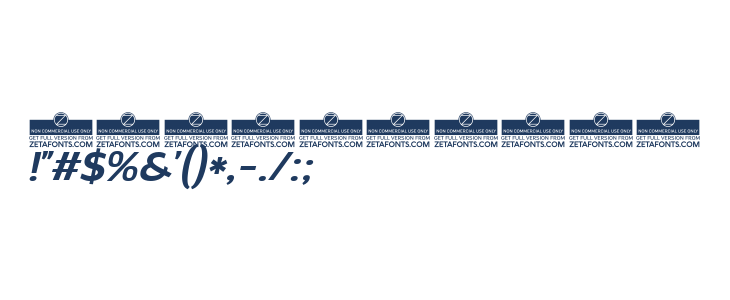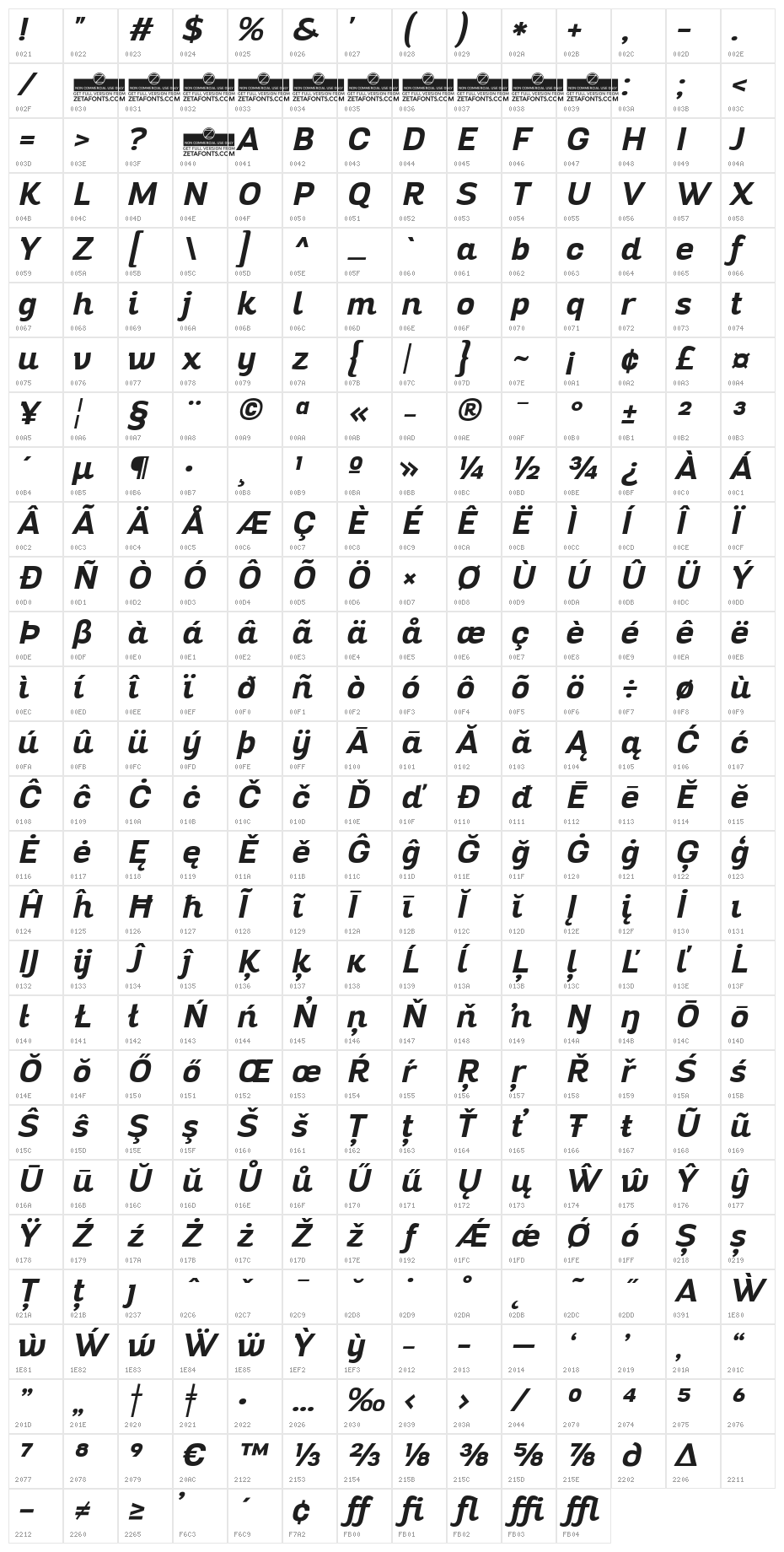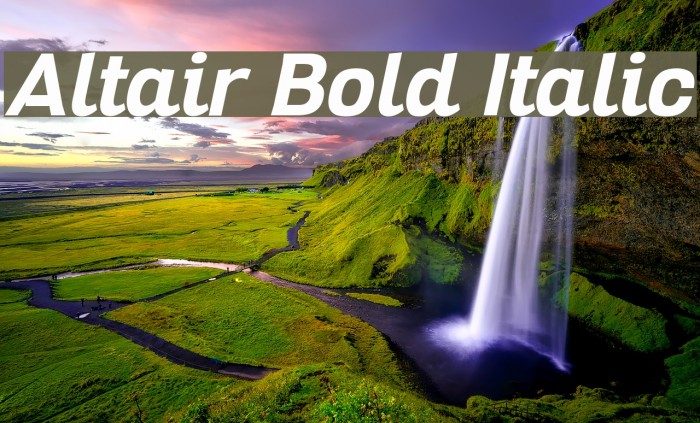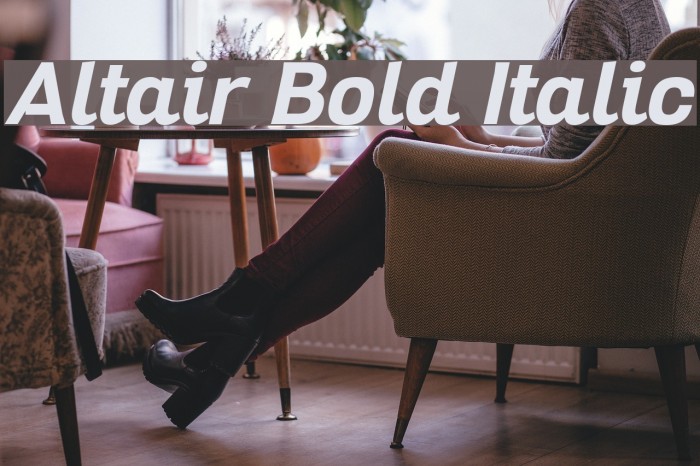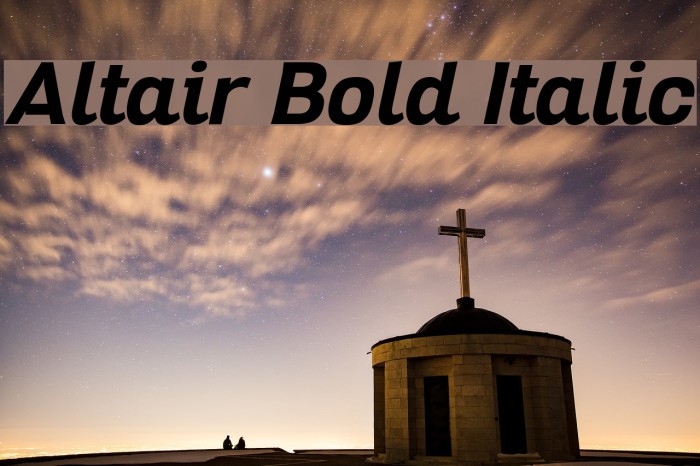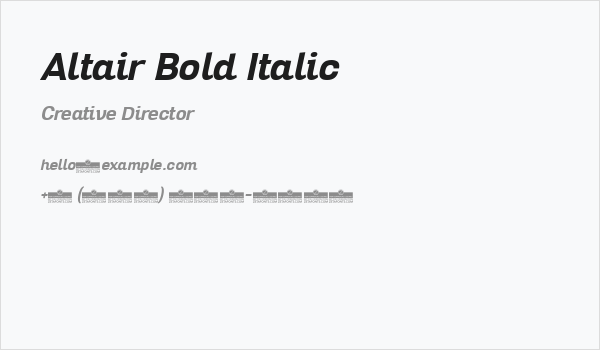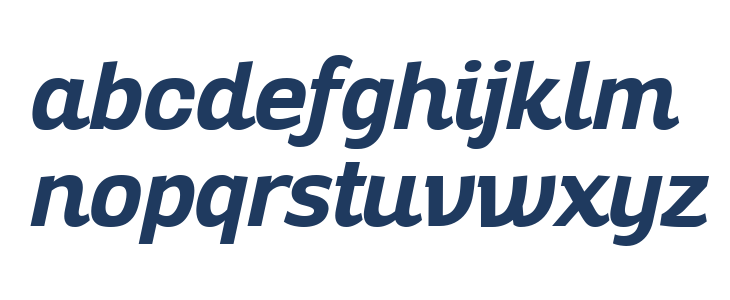
Altair Bold Italic Font
Altair Bold Italic Description
This font exhibits a bold and italicized style, characterized by its strong and assertive presence. The uppercase and lowercase letters are designed with a slight slant, enhancing its dynamic and modern appeal. The strokes are consistent in weight, providing a uniform appearance across all characters. The numerals and special characters maintain the same boldness, ensuring readability and impact. This font is well-suited for projects that require a contemporary and energetic look, making it ideal for headlines, branding, and advertising materials.
| Use Case | Headlines, Branding, Advertising |
| Proposed Projects | Ideal for headlines, branding, advertising, and any project needing a strong, modern typeface. |